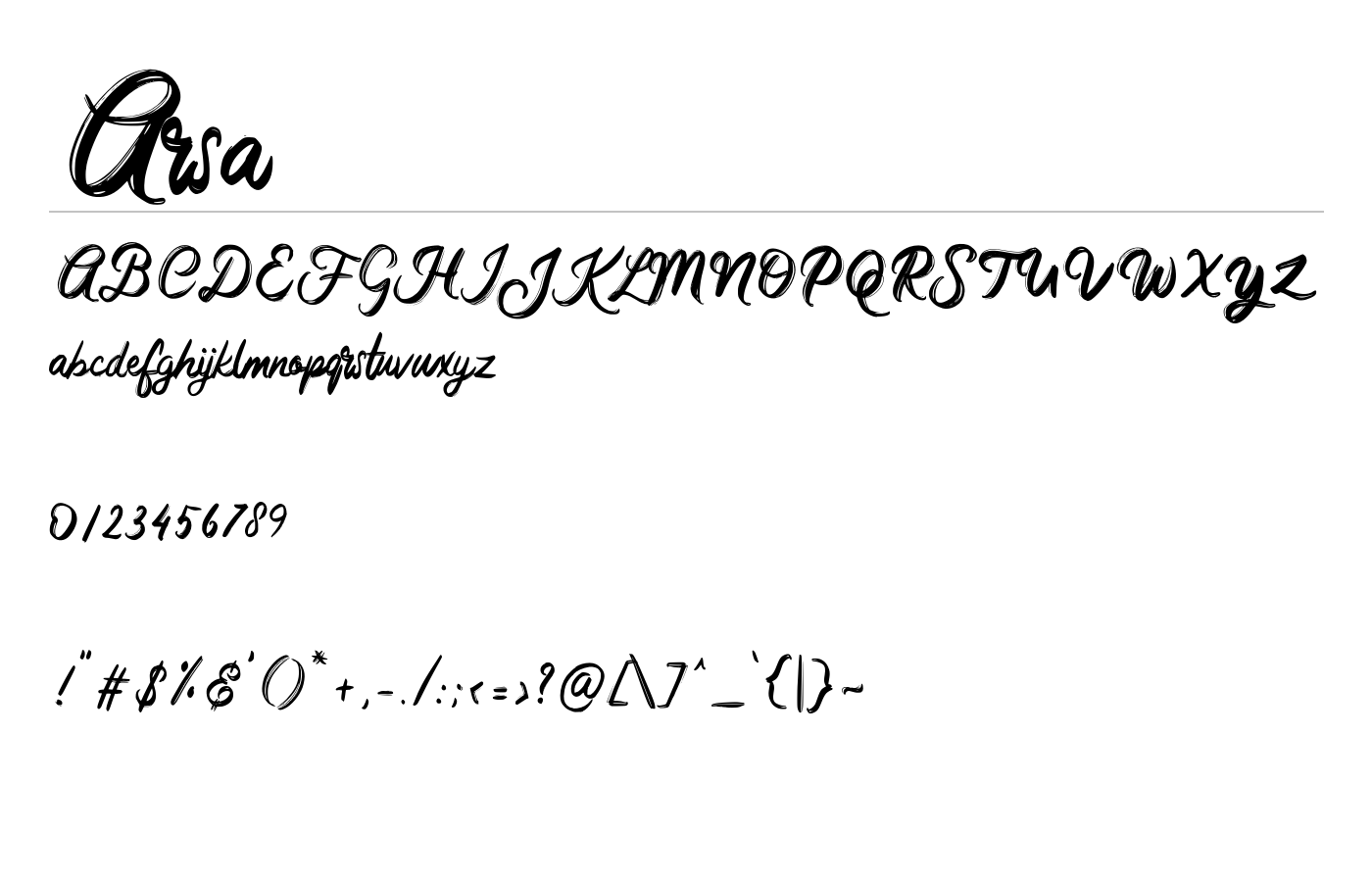
Arsa is a lively script font with a bold, flowing style that mimics hand-drawn calligraphy. Its thick and thin strokes add dynamic contrast, making it perfect for creative and elegant designs like logos, invitations, or headlines where a personal and artistic touch is desired. This font brings charm and expressiveness, ideal for projects that want to stand out with a warm, handcrafted feel.
Arsa Font
About Arsa Font
| Font family | Arsa Font |
| Designer | Vunira Design |